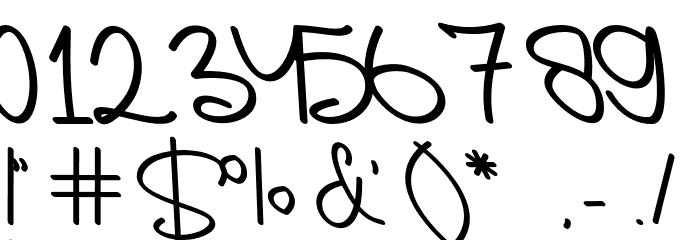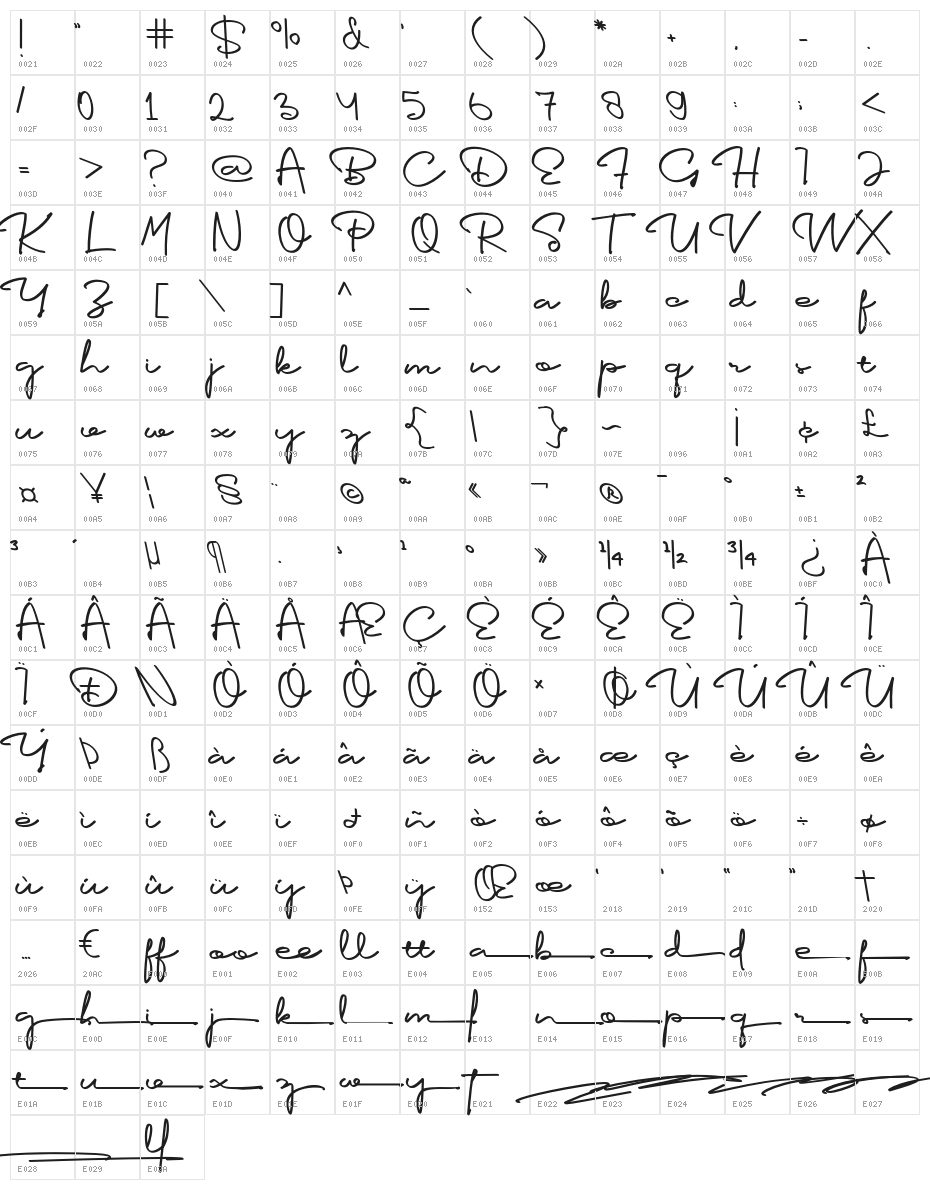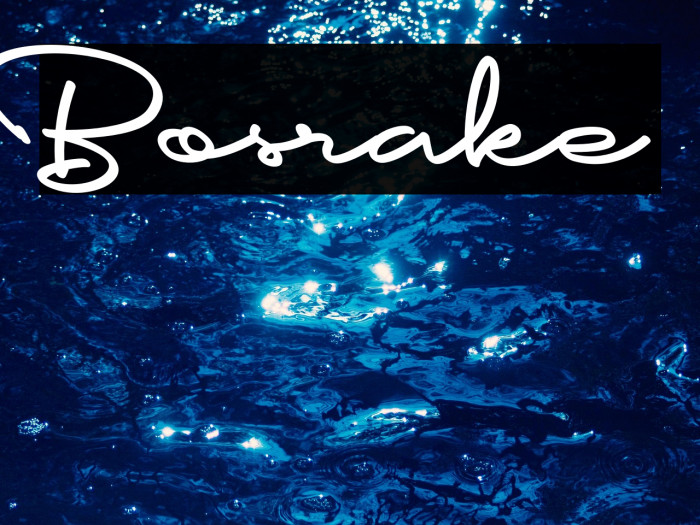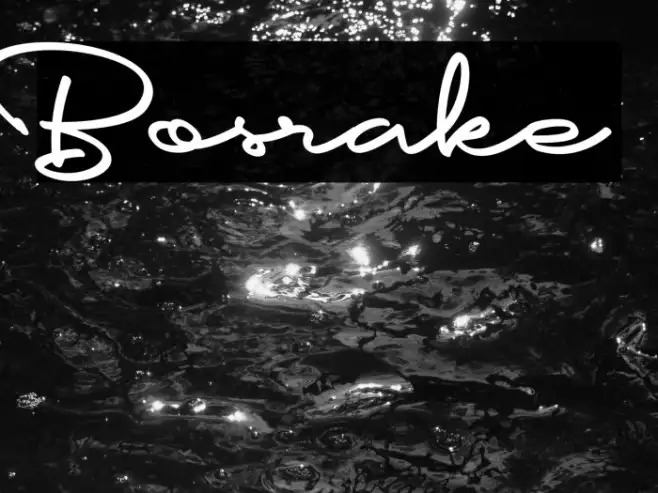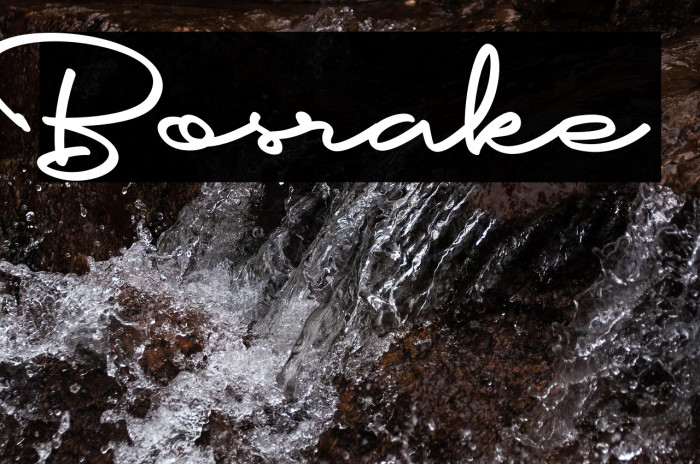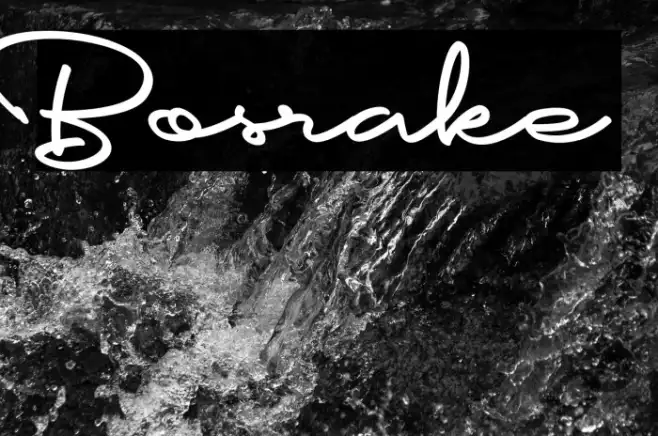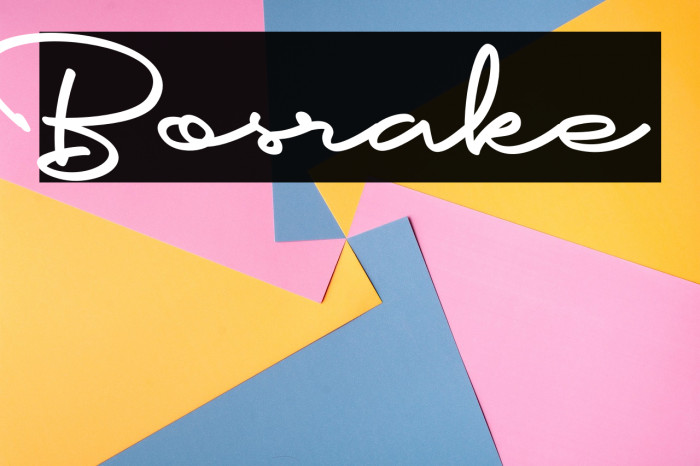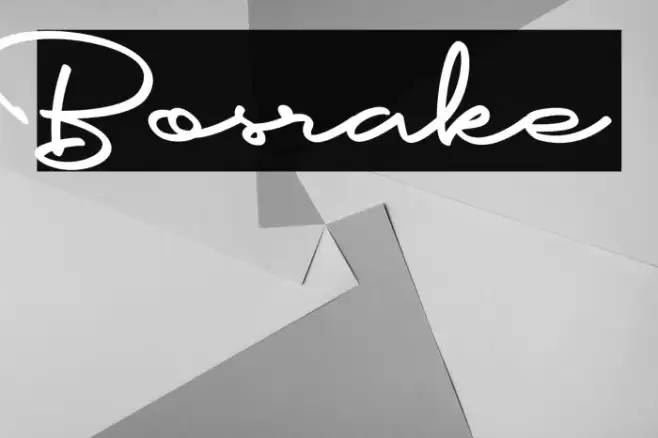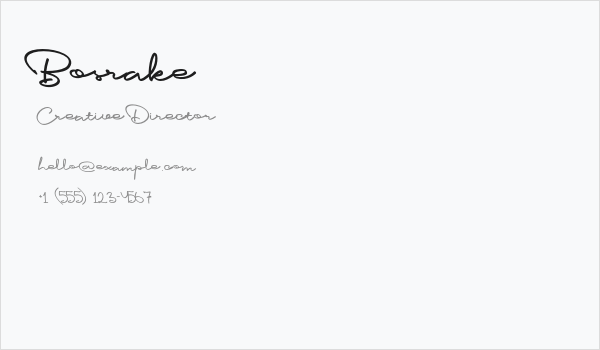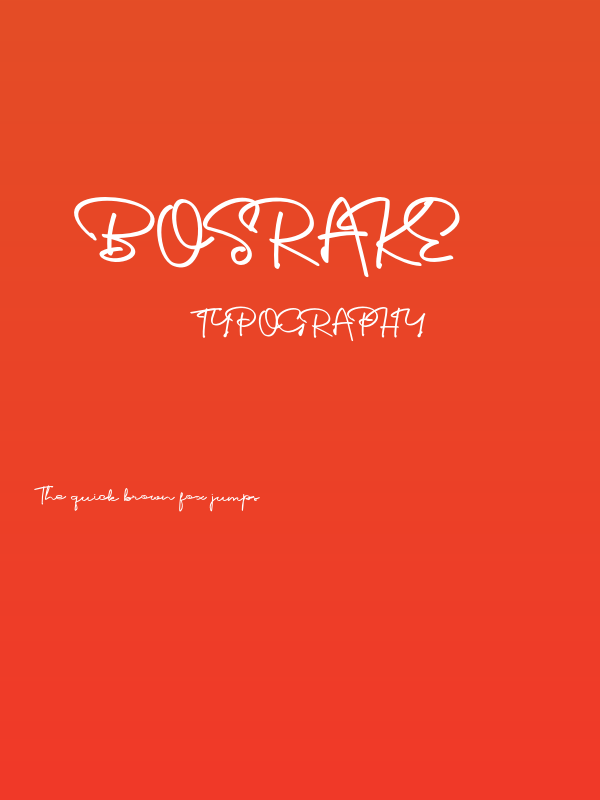
Bosrake Font
Bosrake Description
This font features a playful and dynamic script style with a handwritten appearance. The letters are interconnected, creating a fluid and continuous flow. The uppercase letters are bold and expressive, with unique loops and curves that add character. The lowercase letters maintain a consistent style, complementing the uppercase with their elegant and smooth strokes. Numbers and special characters are designed to match the overall aesthetic, ensuring a cohesive look across all elements. The font's informal and lively nature makes it suitable for creative and artistic projects.
| Use Case | Logos, Invitations, Creative projects |
| Proposed Projects | Ideal for invitations, greeting cards, logos, and creative branding projects. |